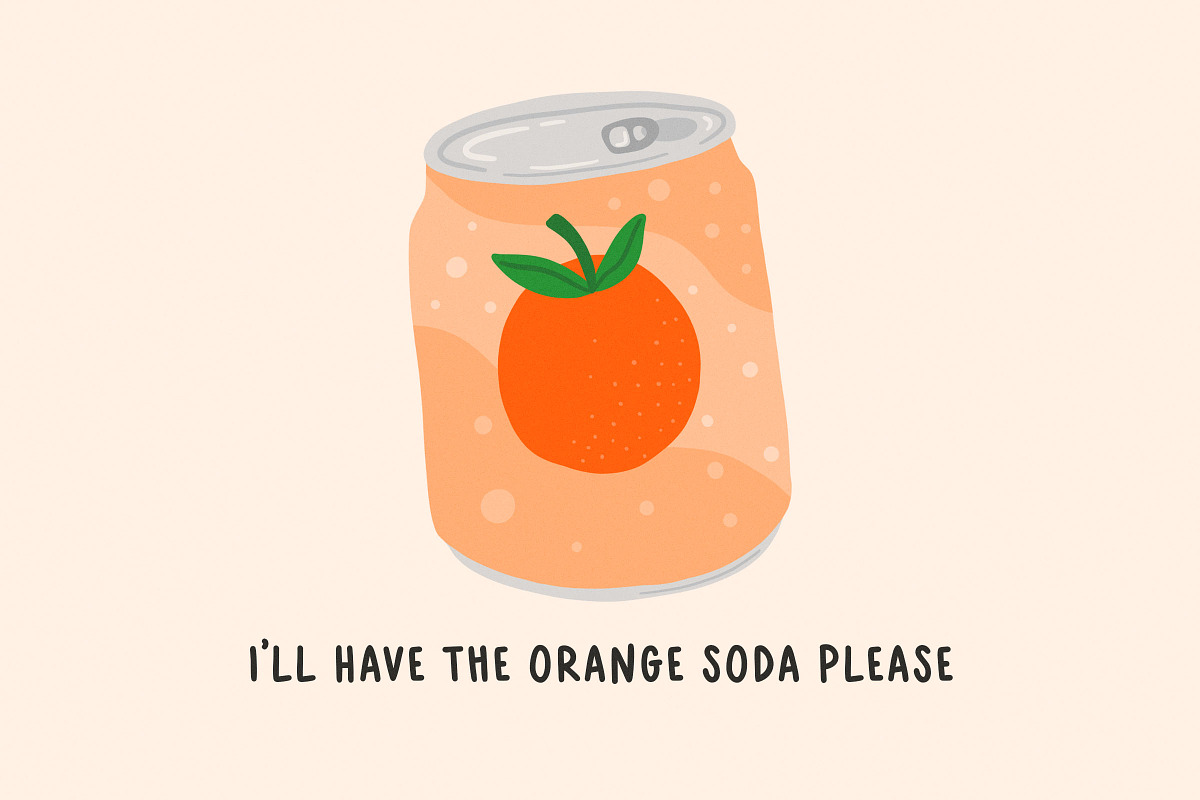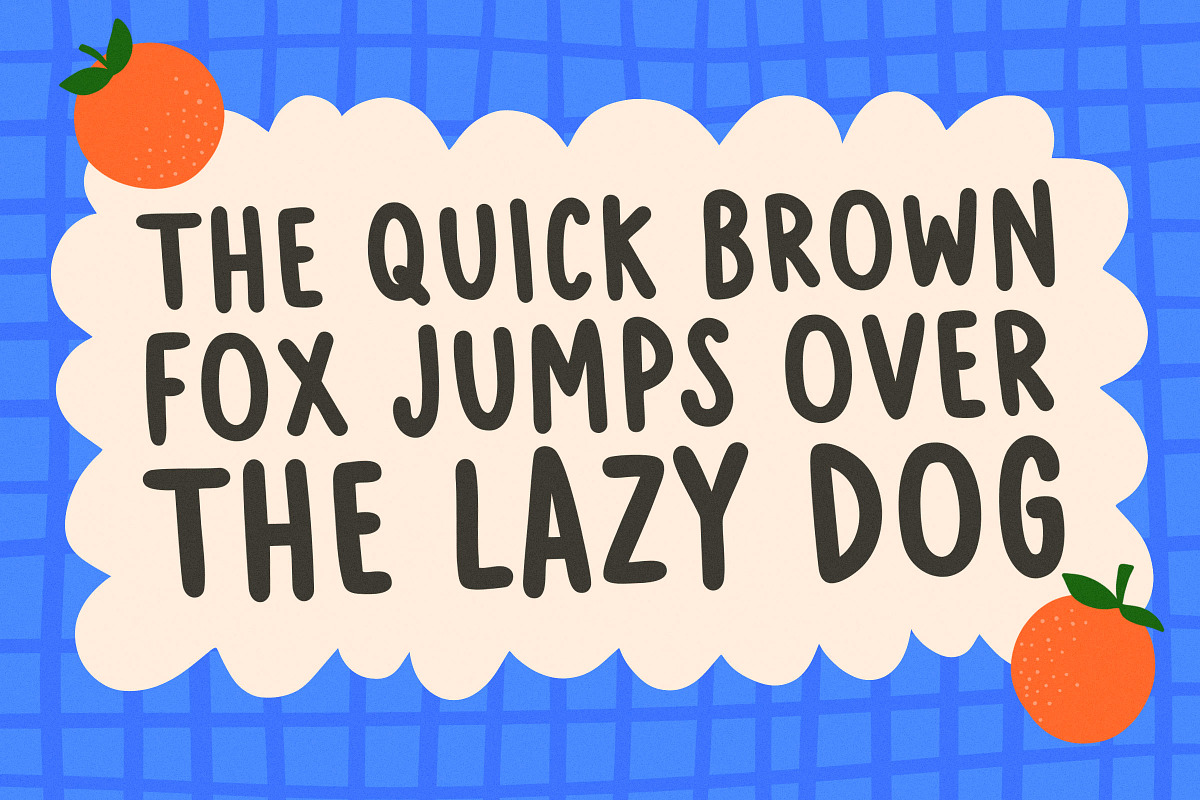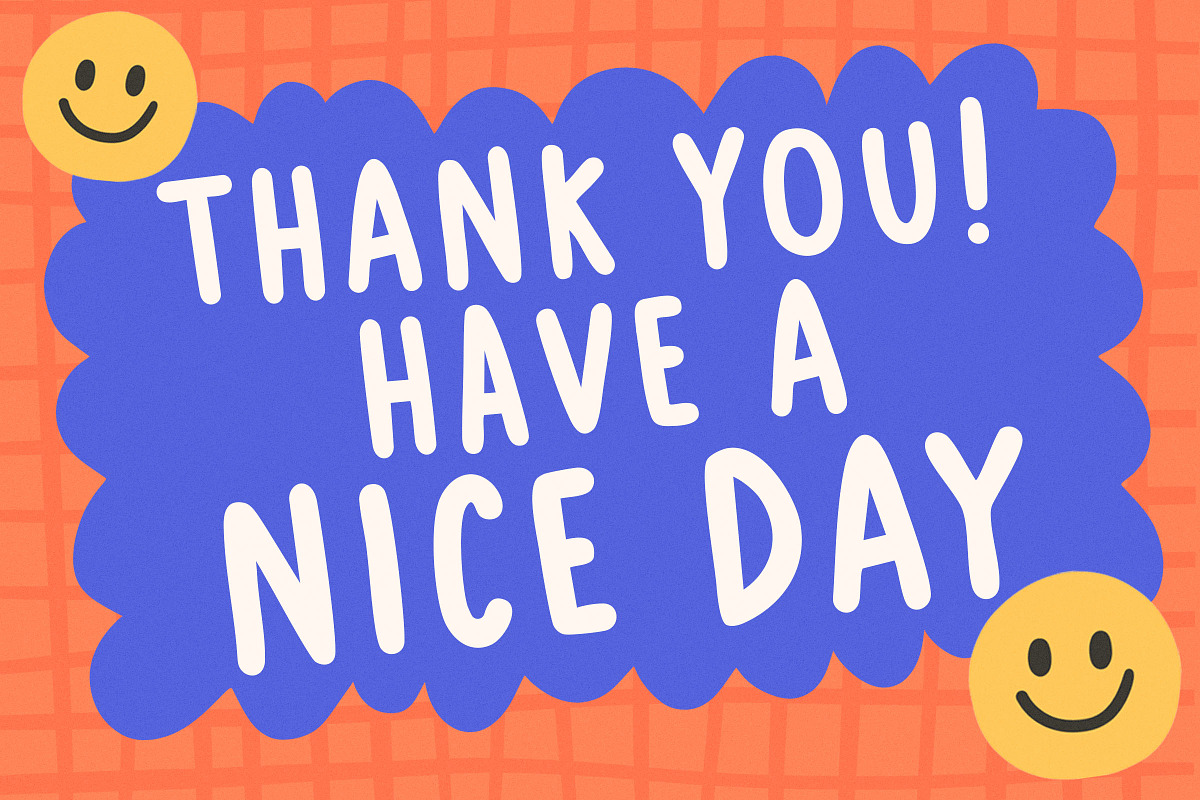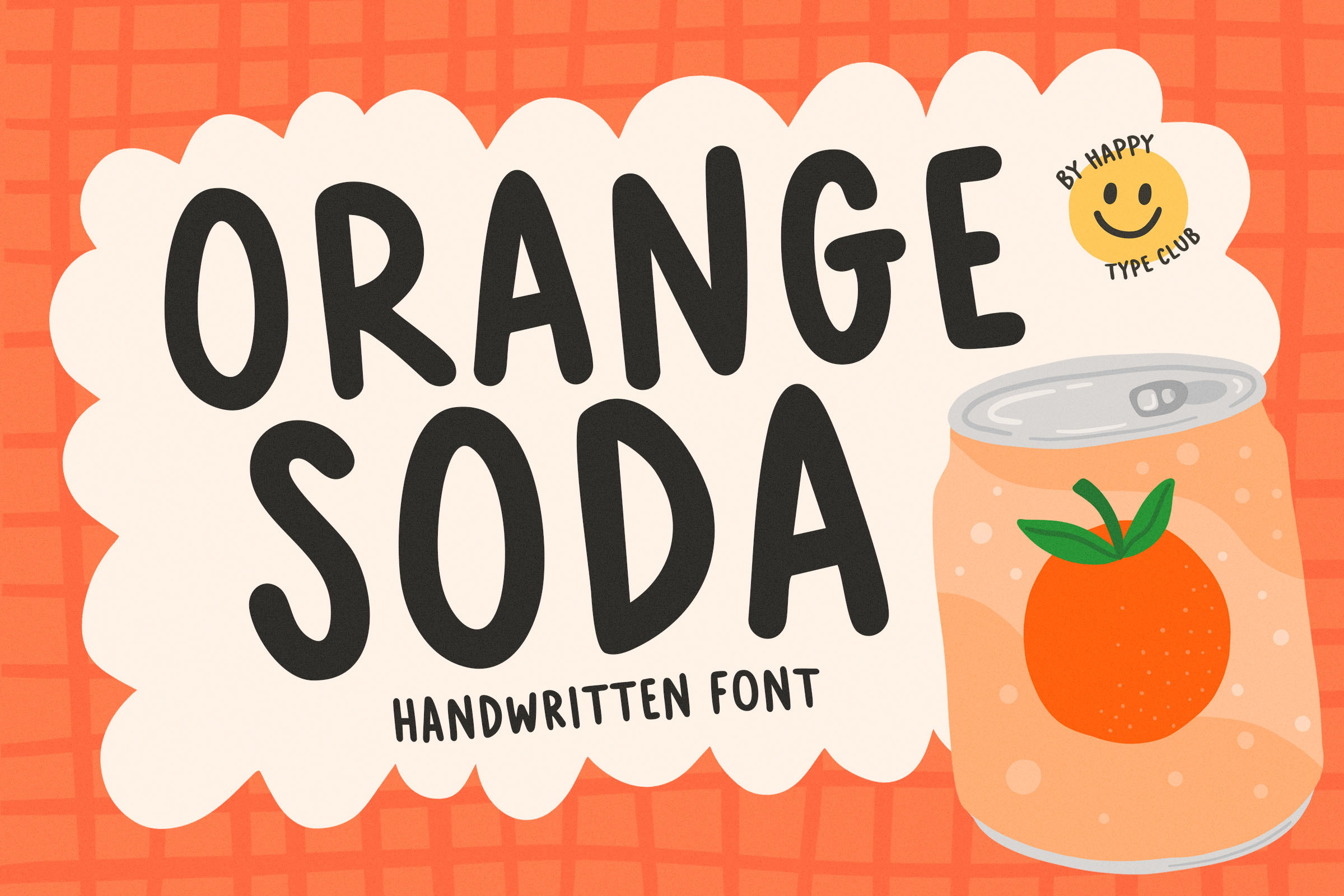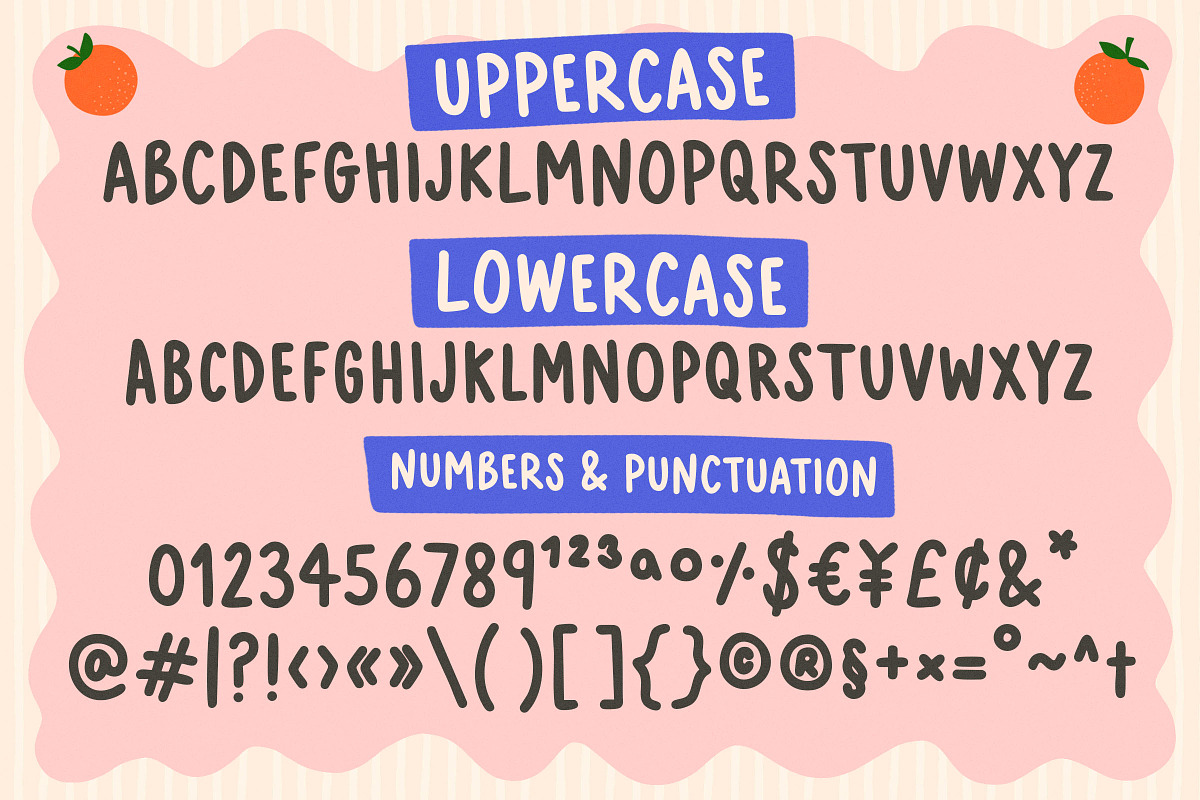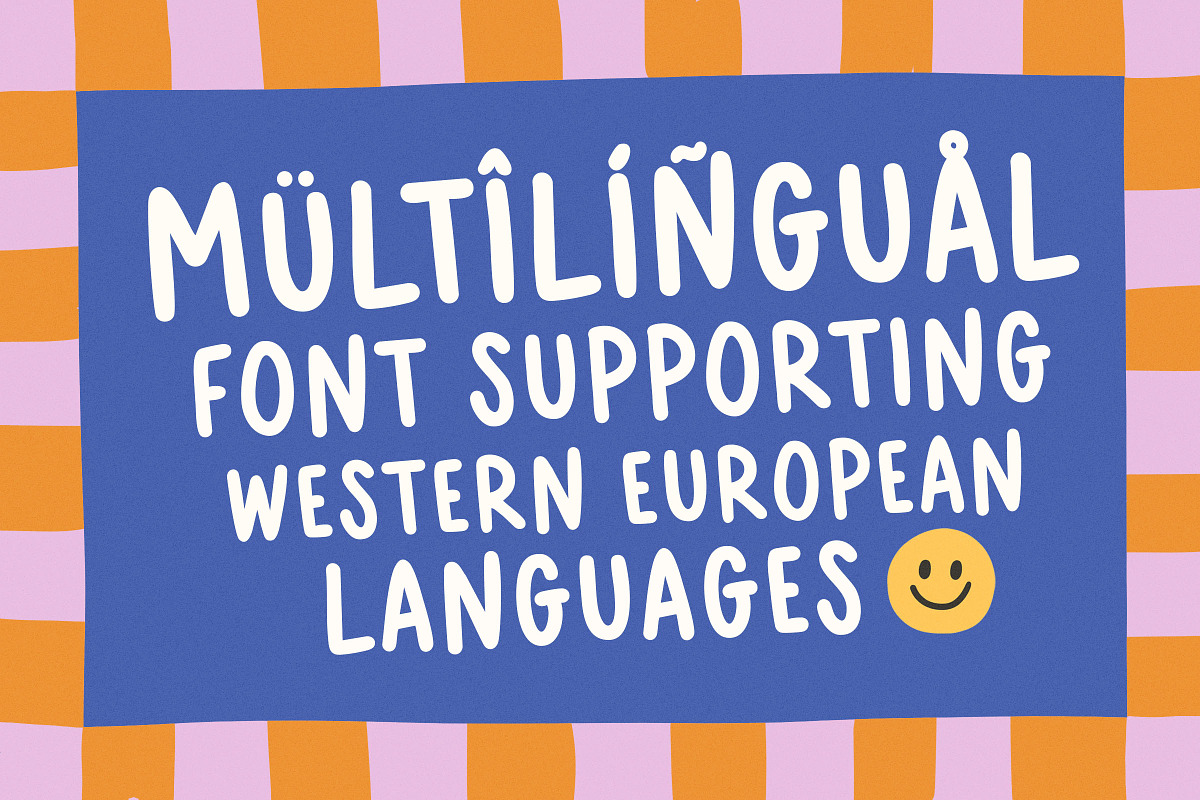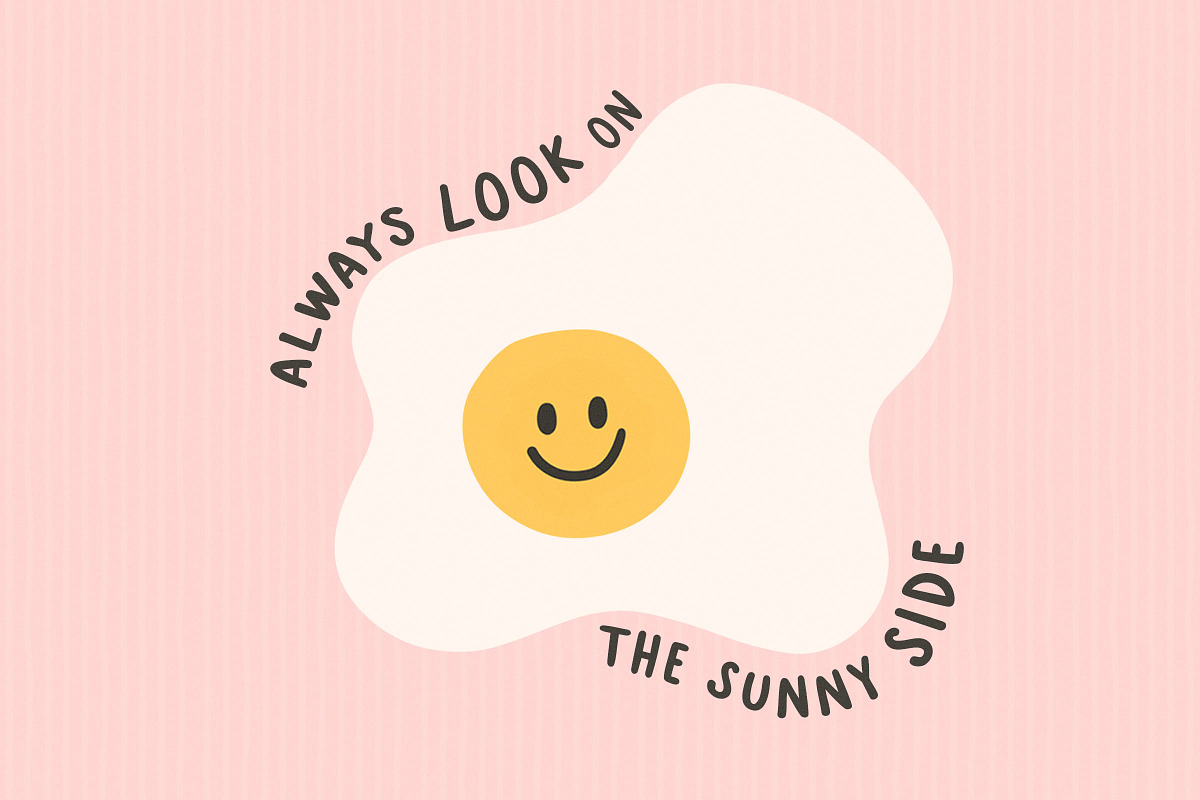
Orange Soda - Handwritten Font
Orange Soda is a bold handwritten typeface perfect for any fun quirky design work! This font can be used for anything such as t-shirt designs, phone cases, greeting cards, invitations, mugs and so much more! Get creative!